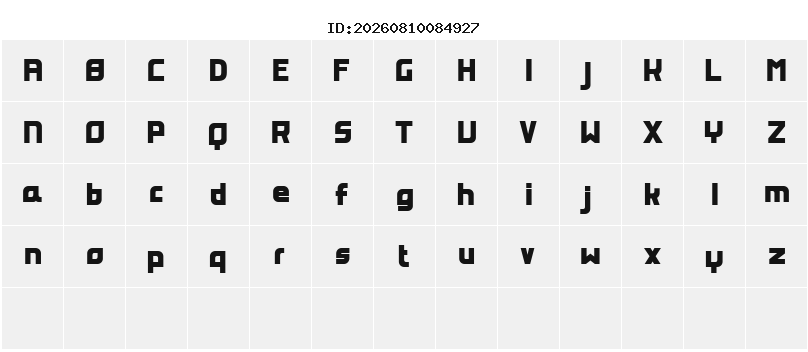
• Font Name: PEPPERMINT
• Font ID: monocromo: PEPPERMINT: 2010
• Full Font Name: PEPPERMINT Regular
• PostScript Name: PEPPERMINT-Regular
• Designer: Katiuscia Mari for monocromo
• Manufacturer: monocromo
About PEPPERMINT.ttf
PEPPERMINT.ttf is a modern, elegant sans-serif font designed for ultimate readability and visual harmony. Perfect for branding, headlines, web design, and print materials.